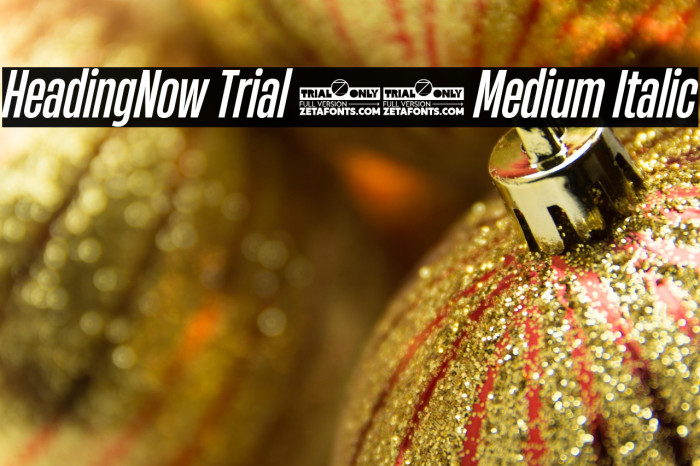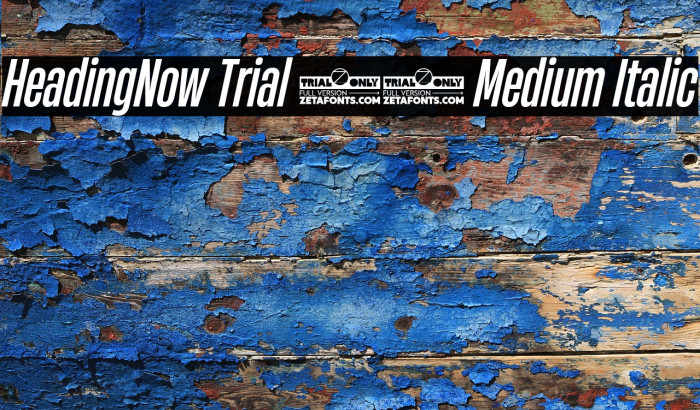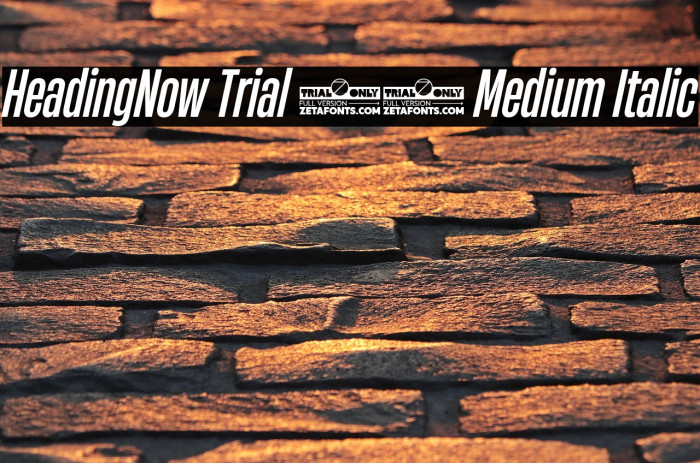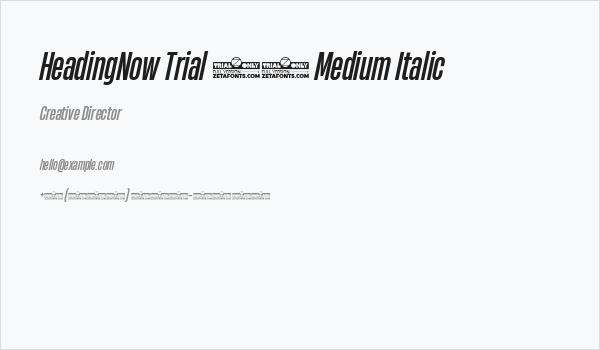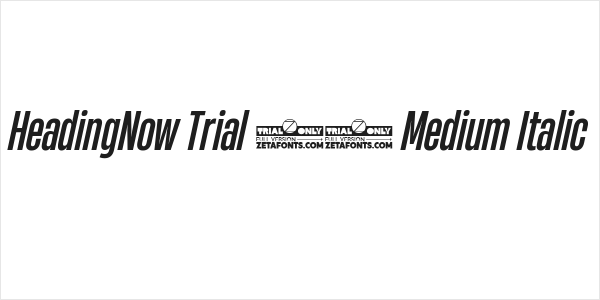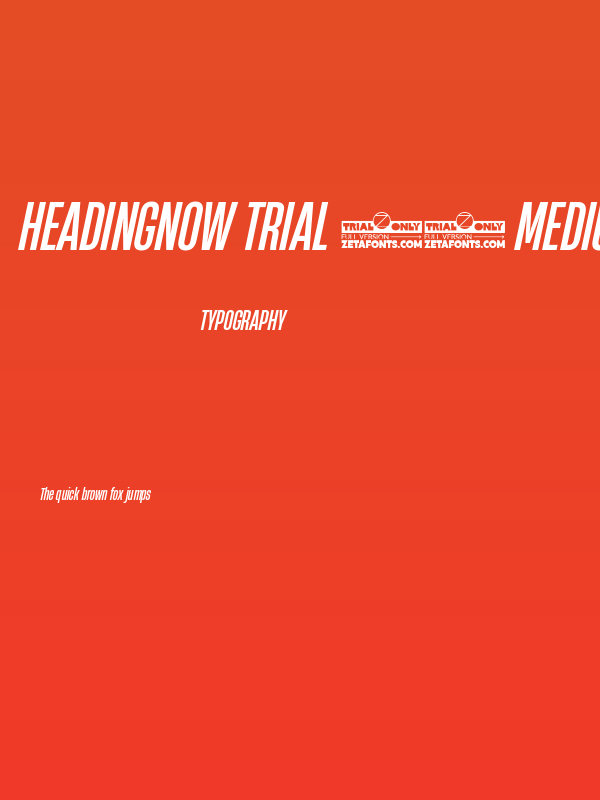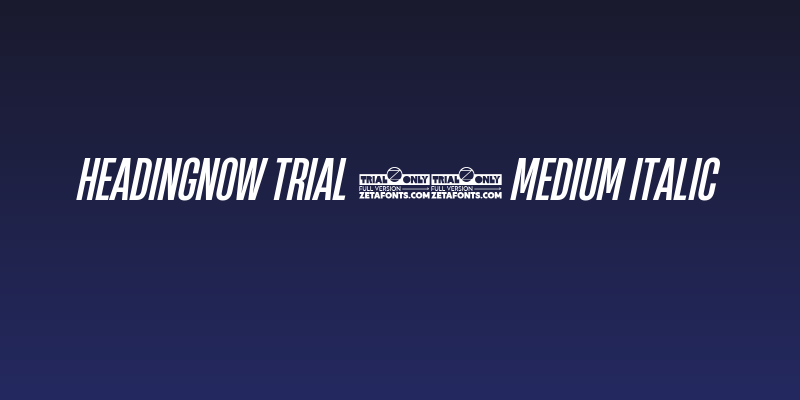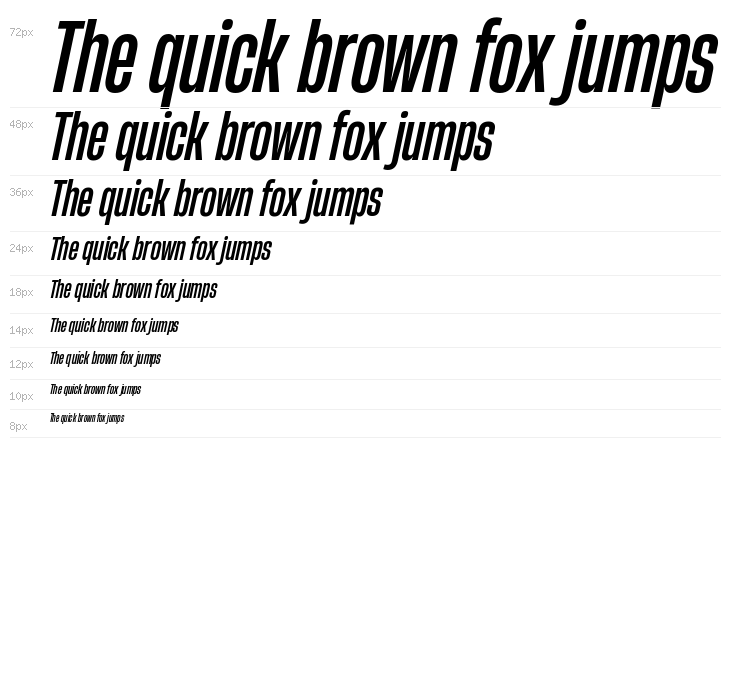
HeadingNow Trial 35 Medium Italic Font
HeadingNow Trial 35 Medium Italic Description
This font showcases a modern and sleek design with a strong emphasis on boldness and clarity. The uppercase and lowercase letters are slightly condensed, giving it a compact appearance while maintaining readability. The italic style adds a dynamic and forward-leaning aspect, making it suitable for contemporary designs. The characters are well-defined with a consistent stroke width, providing a uniform look across all letters and numbers. Special characters are included, maintaining the same stylistic features, ensuring versatility in various applications.
| Use Case | Headlines, Logos, Advertising |
| Proposed Projects | Ideal for branding, advertising, and editorial design projects where a modern and impactful look is desired. |